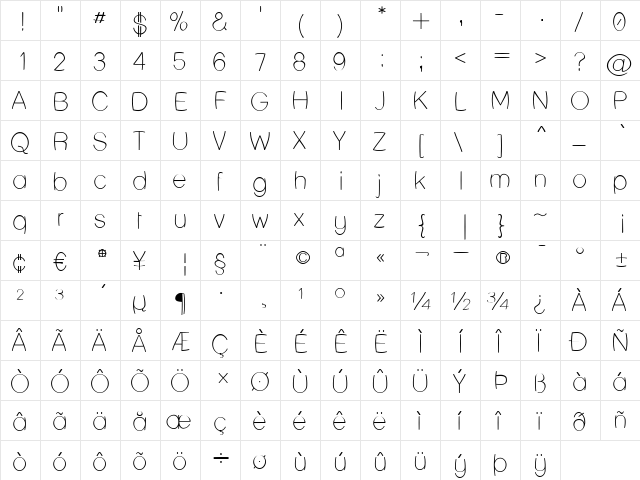
Lane Humouresque Regular
Design Context for Lane Humouresque Typeface
Lane Humouresque is a composed and adaptable typeface that performs quietly and consistently across a wide range of design contexts.